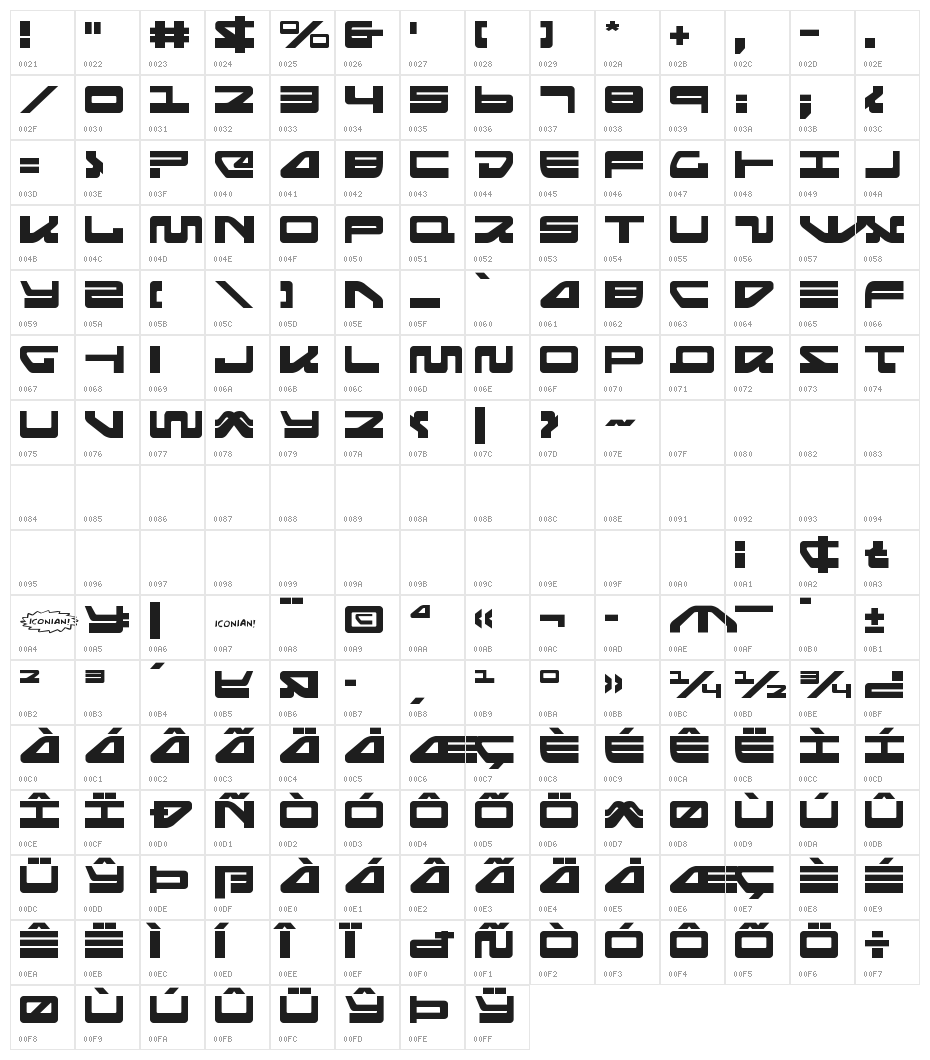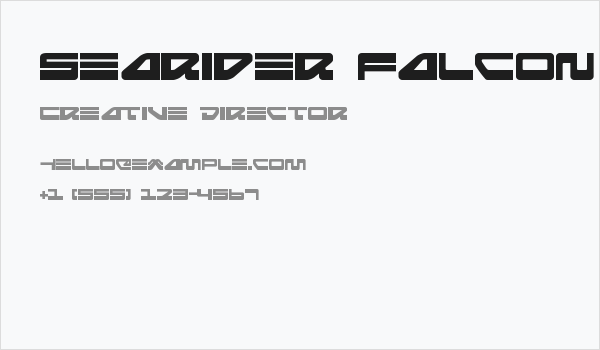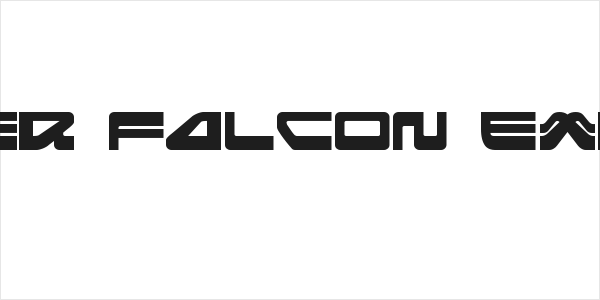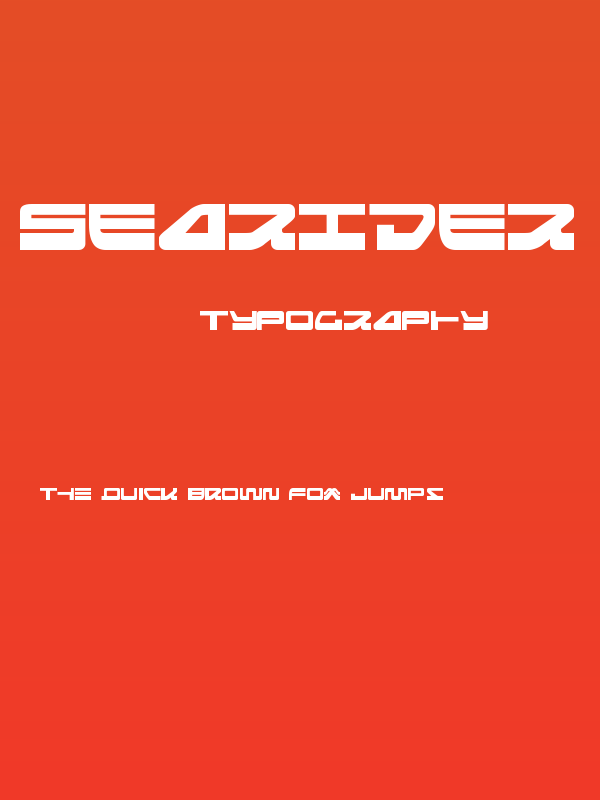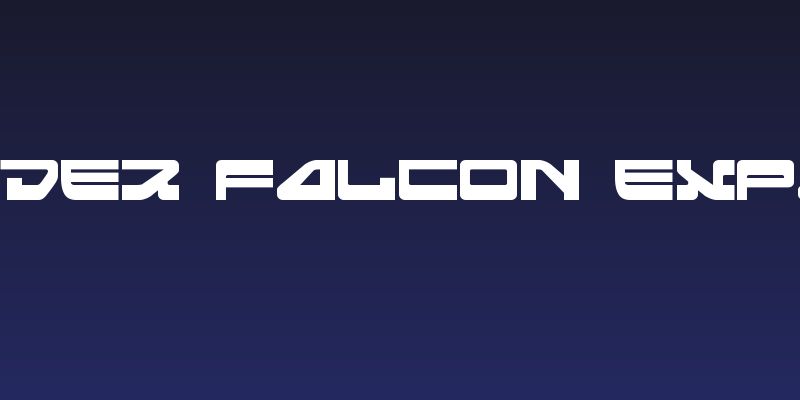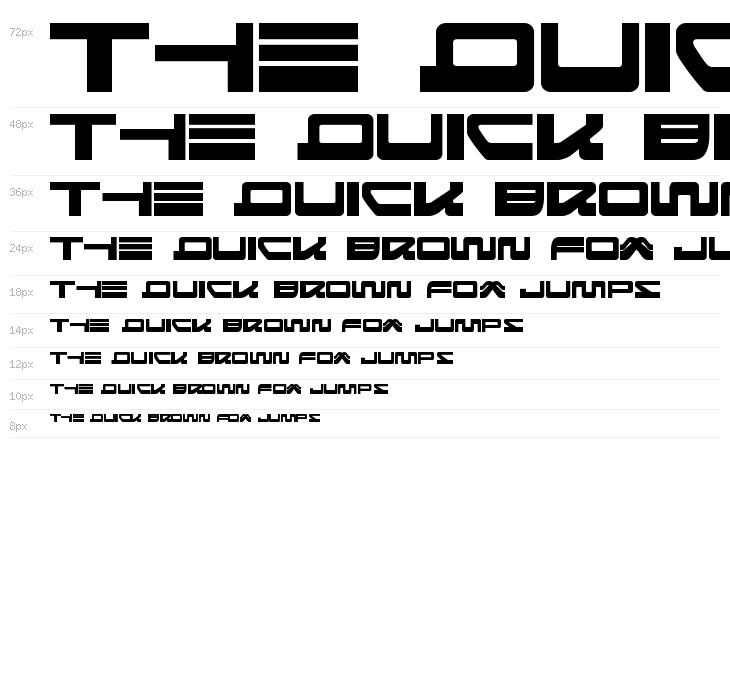
Searider Falcon Expanded Font
Searider Falcon Expanded Description
This font exhibits a bold and futuristic design with geometric shapes and sharp angles. The characters are distinct with a blocky appearance, giving a sense of modernity and innovation. The uppercase and lowercase letters maintain a consistent style, emphasizing a strong visual impact. Numbers and special characters are designed to match the overall aesthetic, ensuring uniformity across all glyphs. The font's expanded width enhances readability while maintaining its unique style, making it suitable for attention-grabbing headlines and creative projects.
| Proposed Projects | Ideal for sci-fi themed designs, technology branding, video game titles, and futuristic posters. |